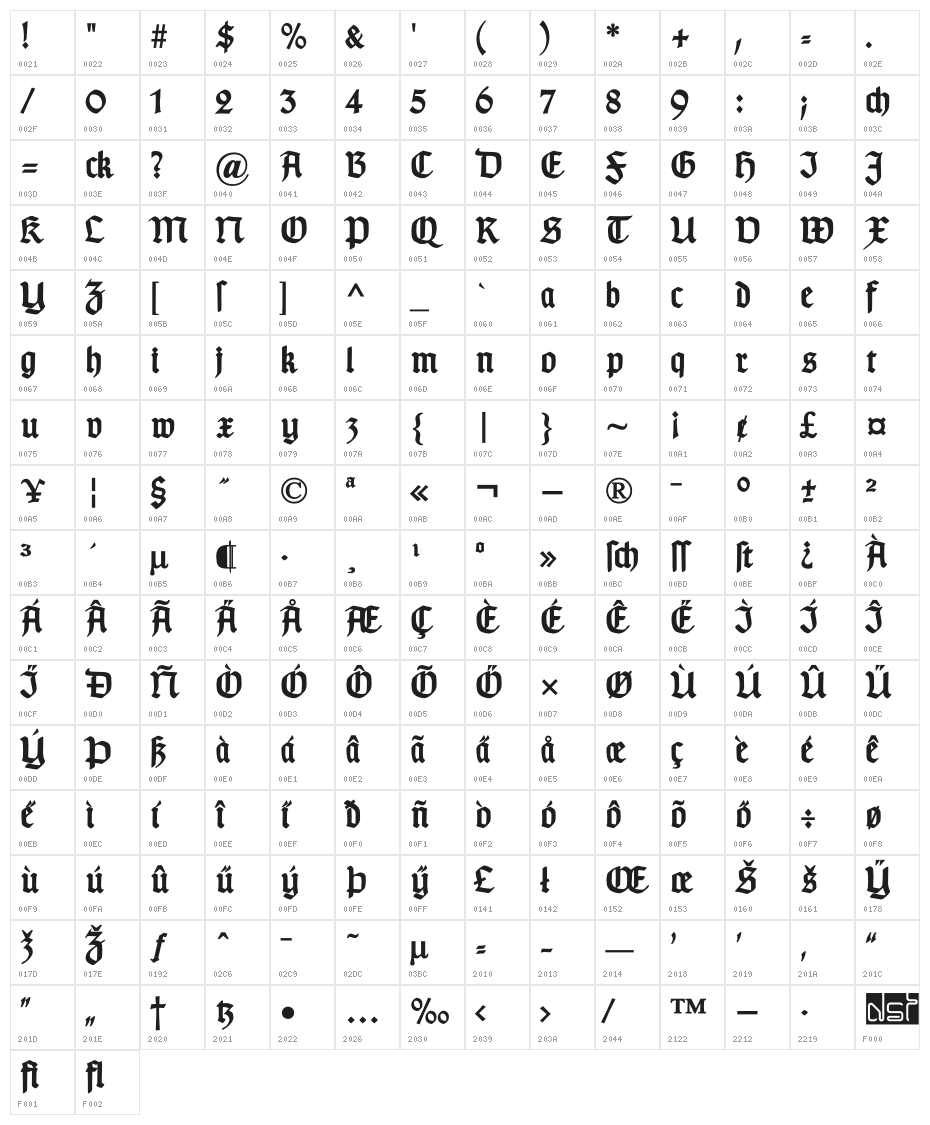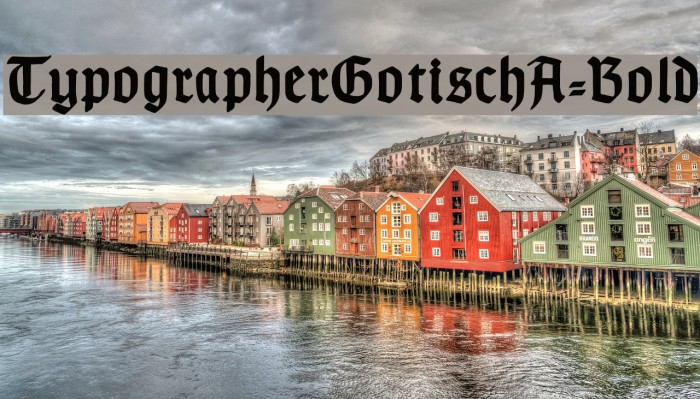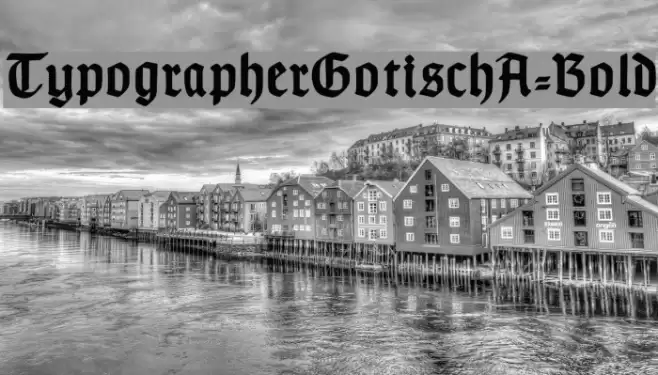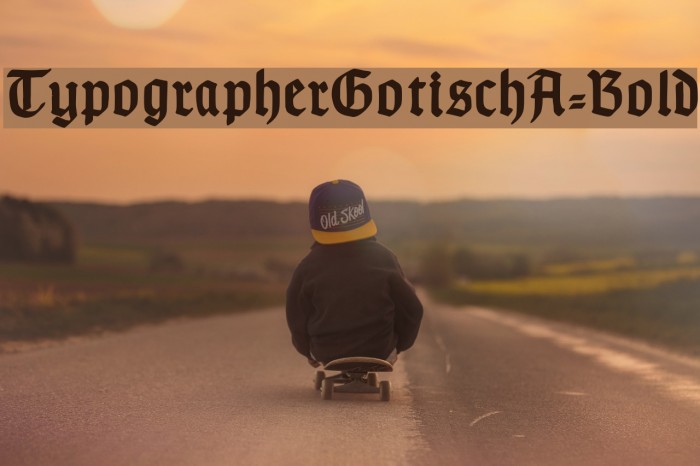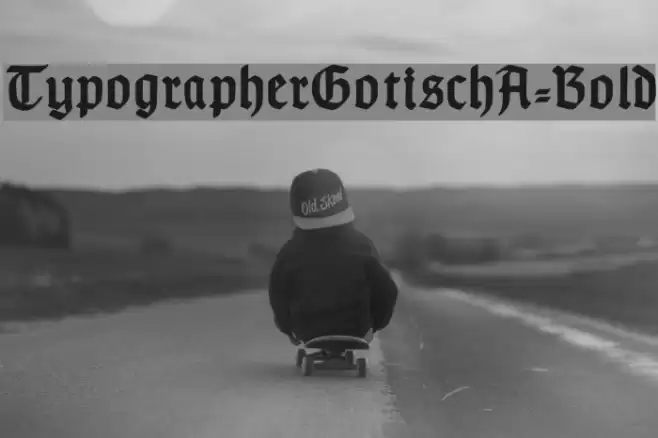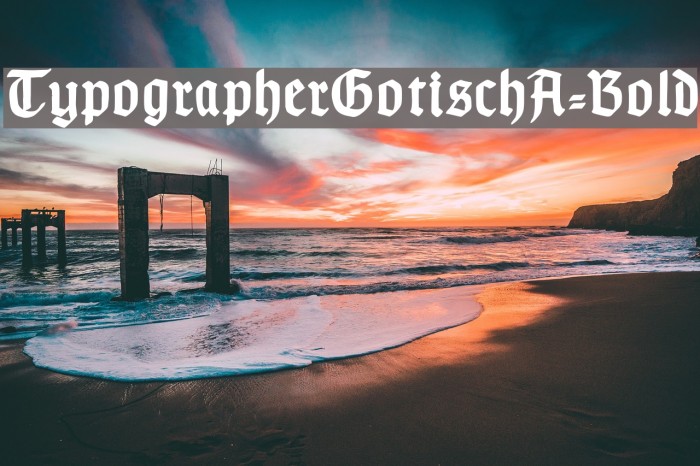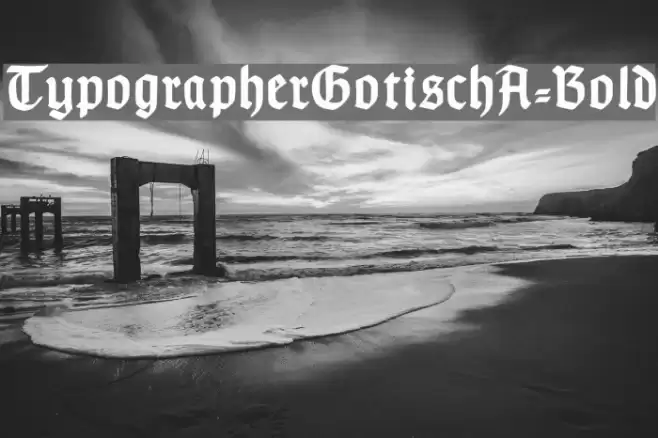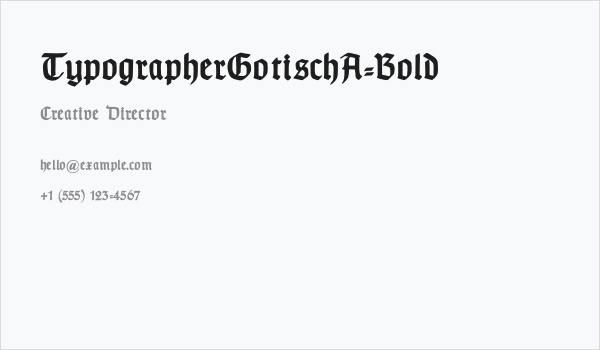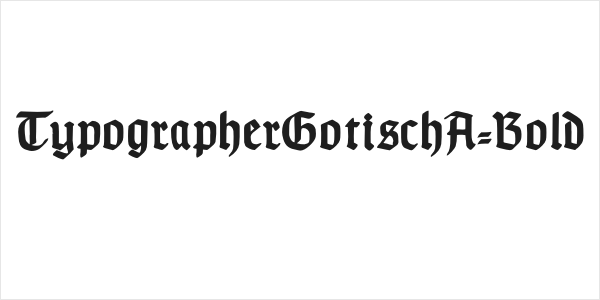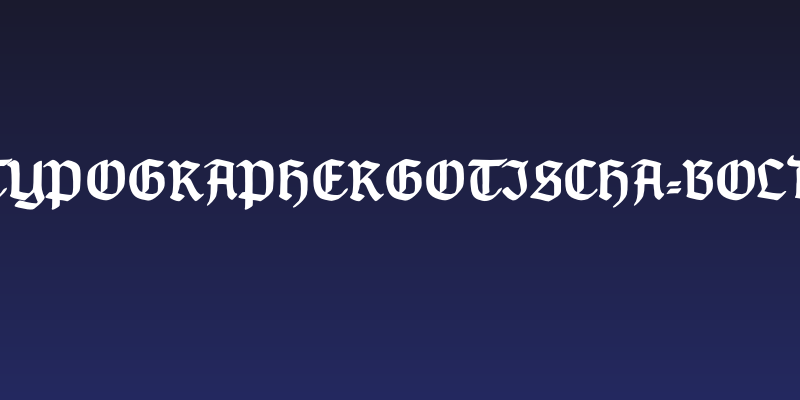
TypographerGotischA-Bold Font
TypographerGotischA-Bold Description
This font exhibits a classic blackletter style, characterized by its intricate and bold strokes. The uppercase letters feature sharp, angular lines with ornate detailing, reminiscent of traditional Gothic script. The lowercase letters maintain the same decorative flair, with a consistent weight that emphasizes the boldness of the design. Numerals are equally stylized, with a distinct medieval influence that complements the overall aesthetic. Special characters are crafted with the same attention to detail, ensuring a cohesive look across all glyphs. This font is ideal for projects that require a historical or dramatic touch, offering a striking visual impact.
| Use Case | Logos, Headlines, Decorative purposes |
| Proposed Projects | Ideal for historical documents, theatrical posters, book covers, and branding that requires a dramatic or medieval touch. |